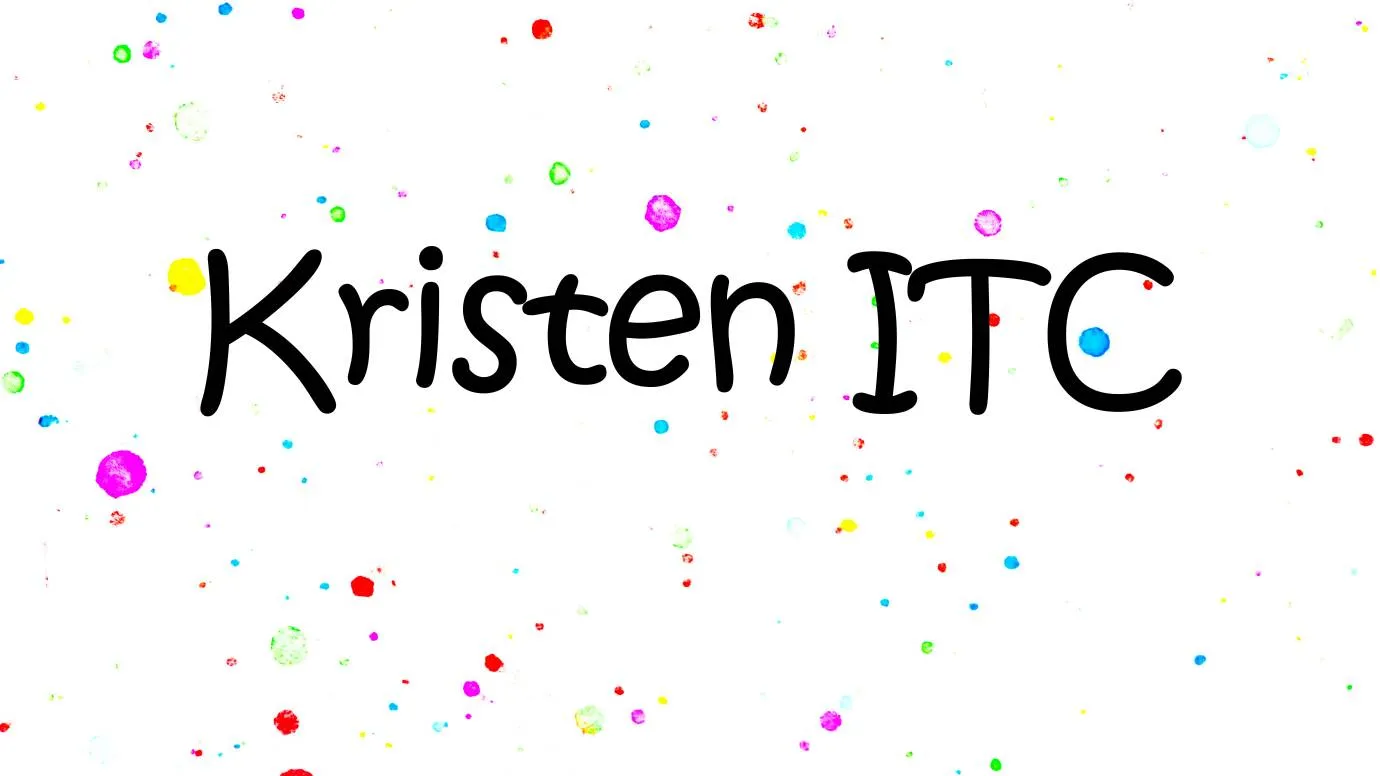
Kristen ITC font Family is designed by George Ryan. He designed it for the International Typeface Corporation. This font family has 2 different weights. It was influenced by a Handwritten menu of Cambridge, Massachusetts Restaurant.
This typeface is highly used for commercial purposes. It is also used inside the Google fonts and MAC. Papyrus Font is the most similar font to this typeface. This is specially designed for the promotion and kids products. This is not the vintage font same as the Kabel font.
| Name | Kristen ITC Font |
| Designer | George Ryan |
| Style | Script |